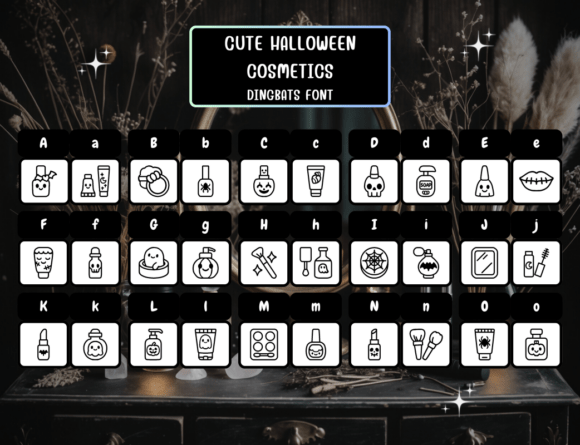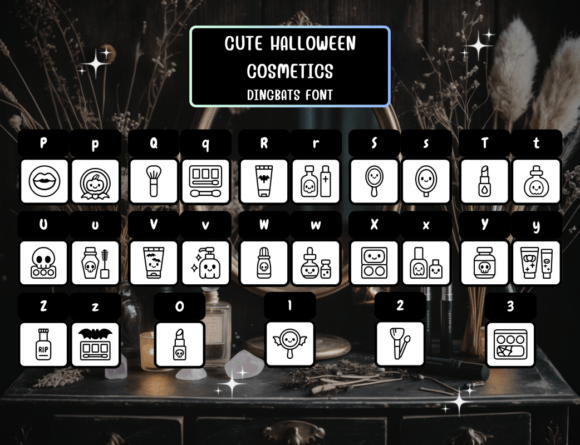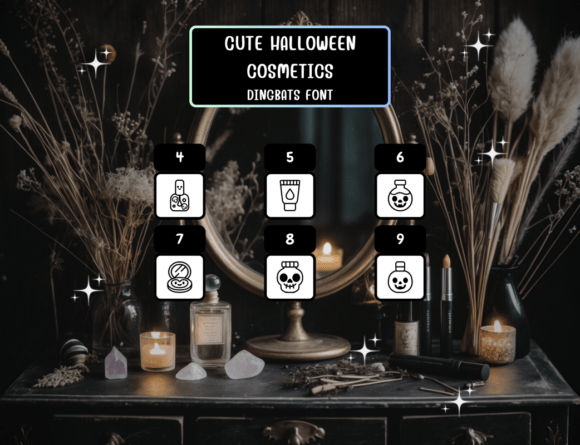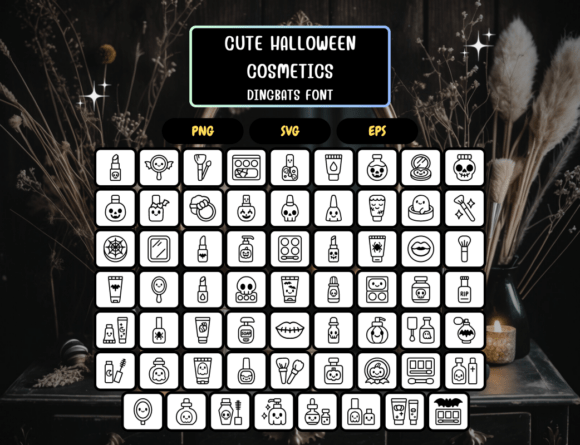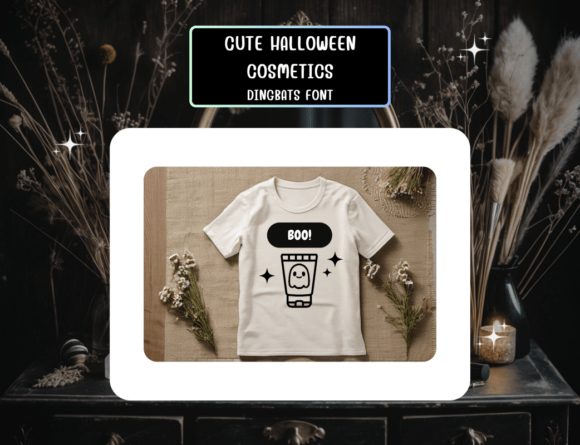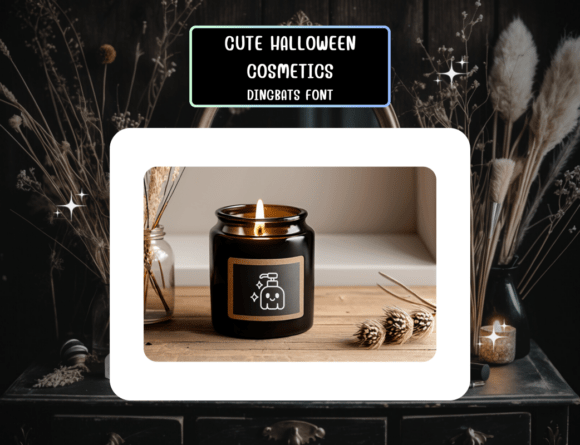
Introduction to Cutehalloweencosmetics Regular Font Font
Fonts play a crucial role in design, and the Cutehalloweencosmetics Regular Font font is a typeface that brings both character and versatility to any project. Whether you’re working on a branding project, a website, or a print design, the Cutehalloweencosmetics Regular Font font offers a unique style that can elevate your work.
Cute Halloween Cosmetics is a charming dingbats font that features hand-drawn cosmetic-themed icons with an adorable spooky twist.
Each glyph presents a unique beauty item—like perfume bottles, lipsticks, mirrors, and makeup brushes—infused with playful Halloween elements such as ghosts, skulls, pumpkins, and bats Designed with clean outlines and rounded forms, this font maintains high legibility while delivering visual appeal in both digital and print formats.
The Cutehalloweencosmetics Regular Font font is more than just a typeface – it’s a design tool that helps you communicate your message with style and clarity. Its unique character set and versatile design make it suitable for a wide range of applications, from elegant invitations to bold headlines.
With its carefully crafted letterforms and balanced proportions, the Cutehalloweencosmetics Regular Font font ensures readability and visual appeal across all mediums.
What makes Cutehalloweencosmetics Regular Font font special?
The Cutehalloweencosmetics Regular Font font stands out with its unique design, exceptional readability, and versatility across various design applications.